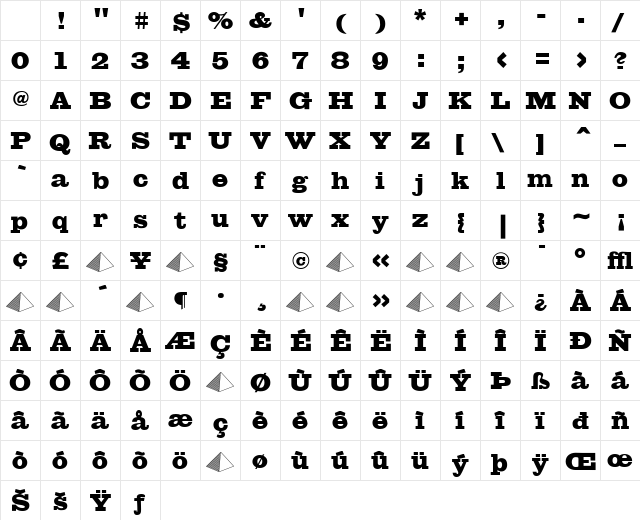
Complete Giza Regular glyph index. Displaying only characters natively supported by Giza Regular font.
Giza is a composed and adaptable typeface that performs quietly and consistently across a wide range of design contexts.